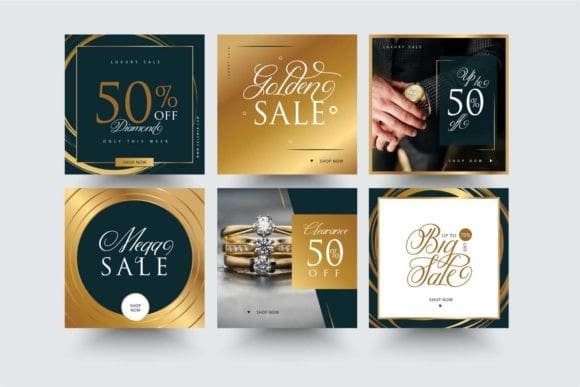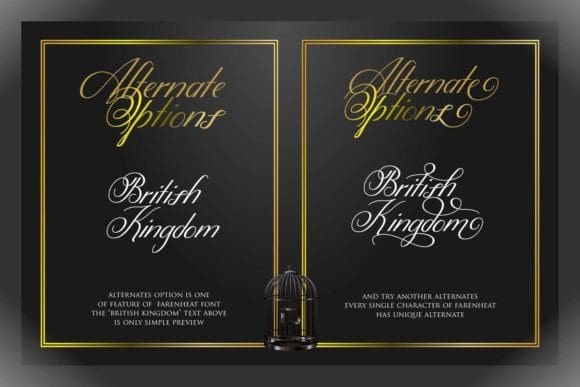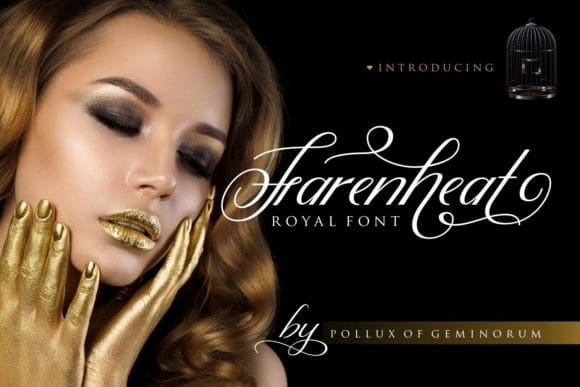
Farenheat Font
Farenheat Font is a royal script font that makes your design exclusive and luxurious. It has a unique, gorgeous feel that can be used to create elegant logos, creating content, wedding invitations, and more.